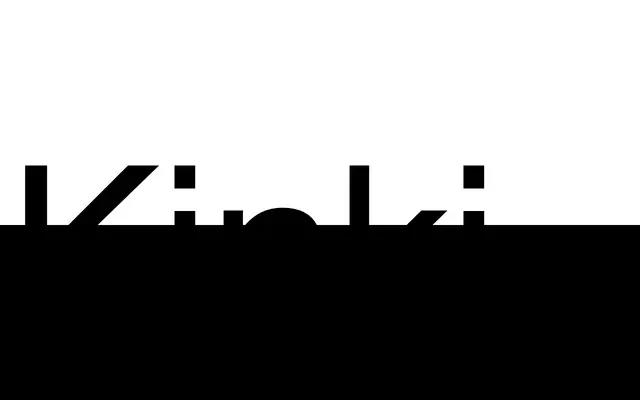
Kinki
A single-weight organic handwritten display face by Ondrej Jób, built with rounded terminals, variable contrast and a large x-height.
Designed by Ondrej Jób and released in 2025, Kinki is a display-oriented handwritten typeface with rounded terminals and natural, variable contrast that gives it an expressive, fluid quality. The family consists of one style with 458 glyphs covering Basic Latin and Extended Latin across more than 100 languages. Stylistic Set 1 provides seriffed alternates on certain characters, and standard ligatures round out the customisation options.
Described explicitly as an organic handwritten typeface with rounded terminals and variable contrast, intended primarily for display use; fits squarely within the script/handwritten category.